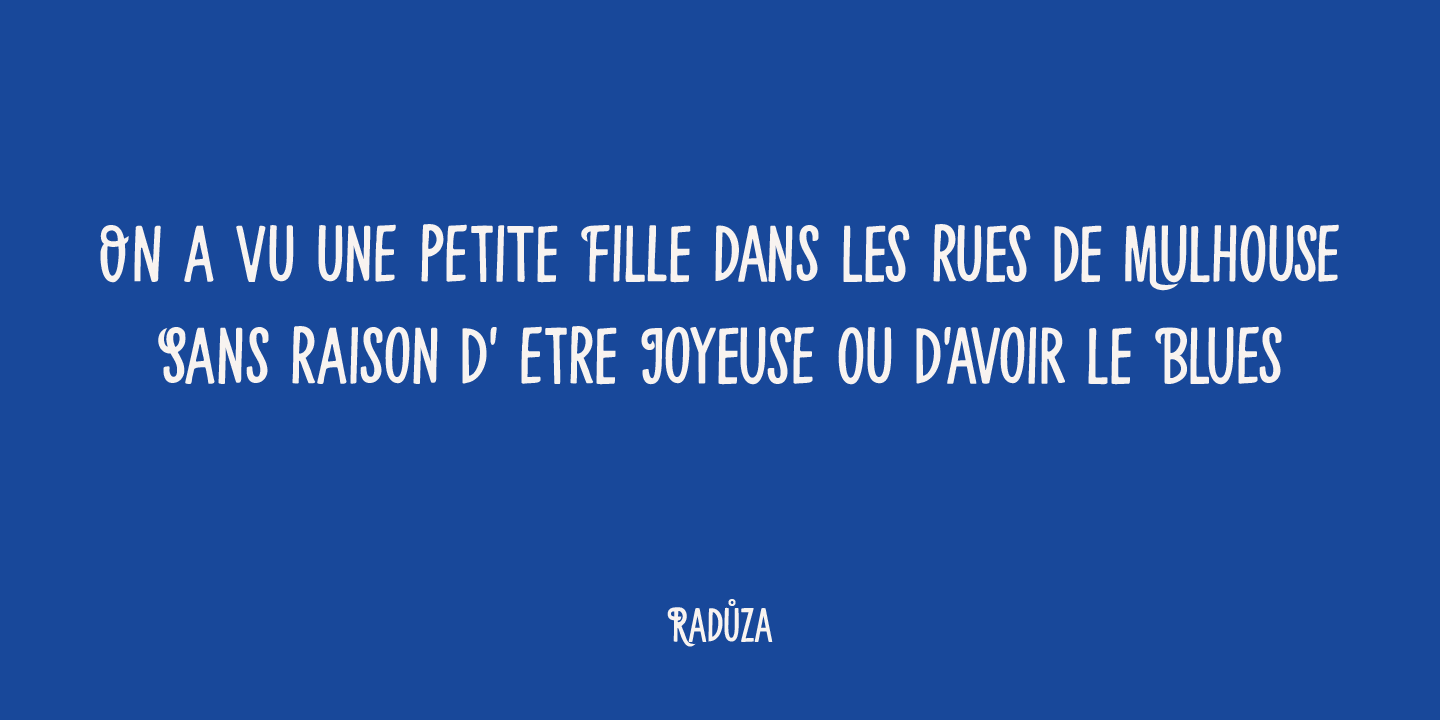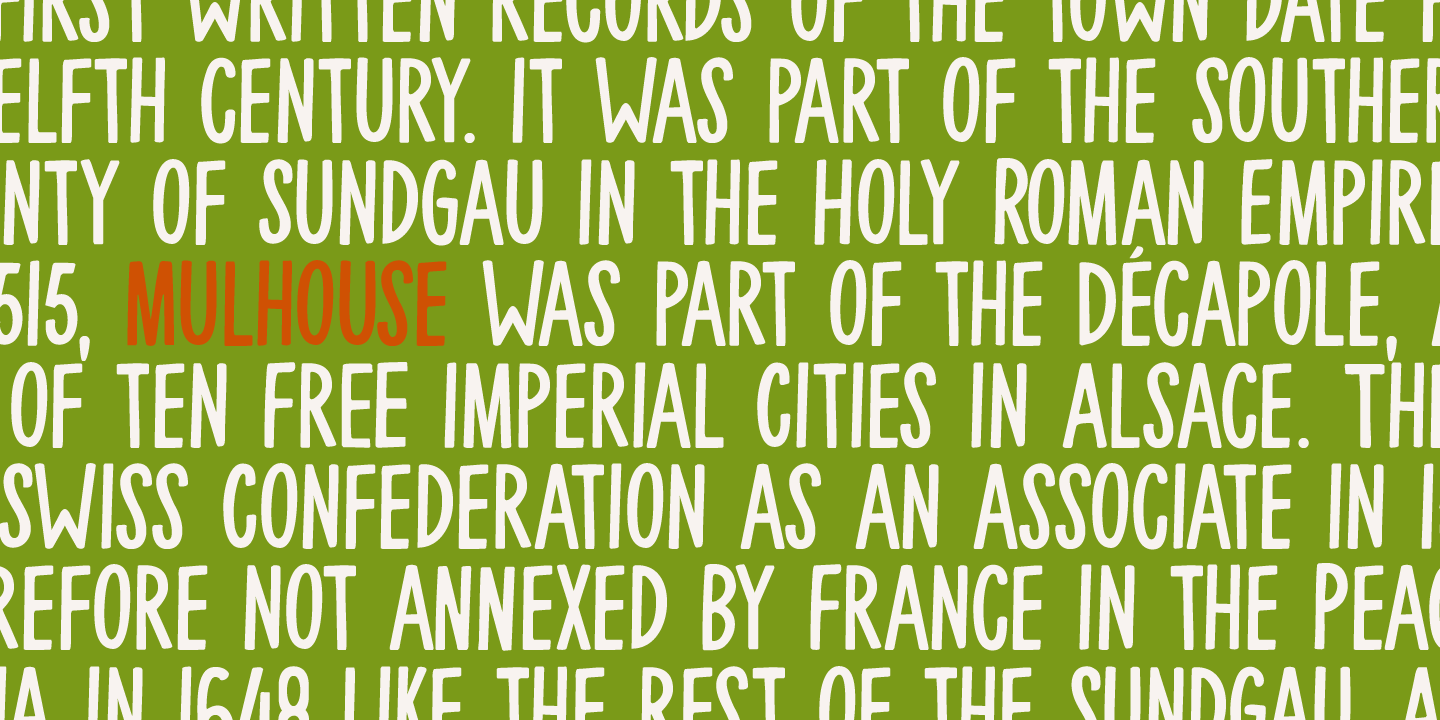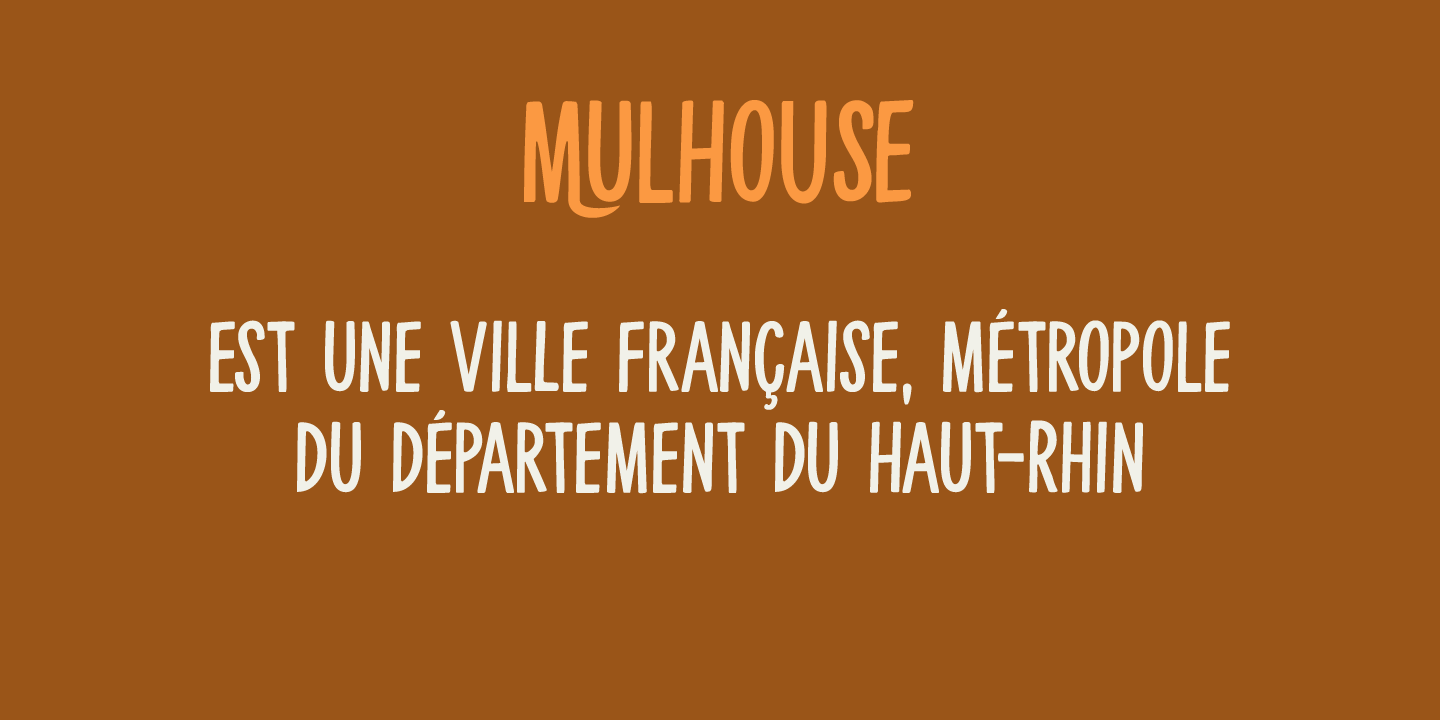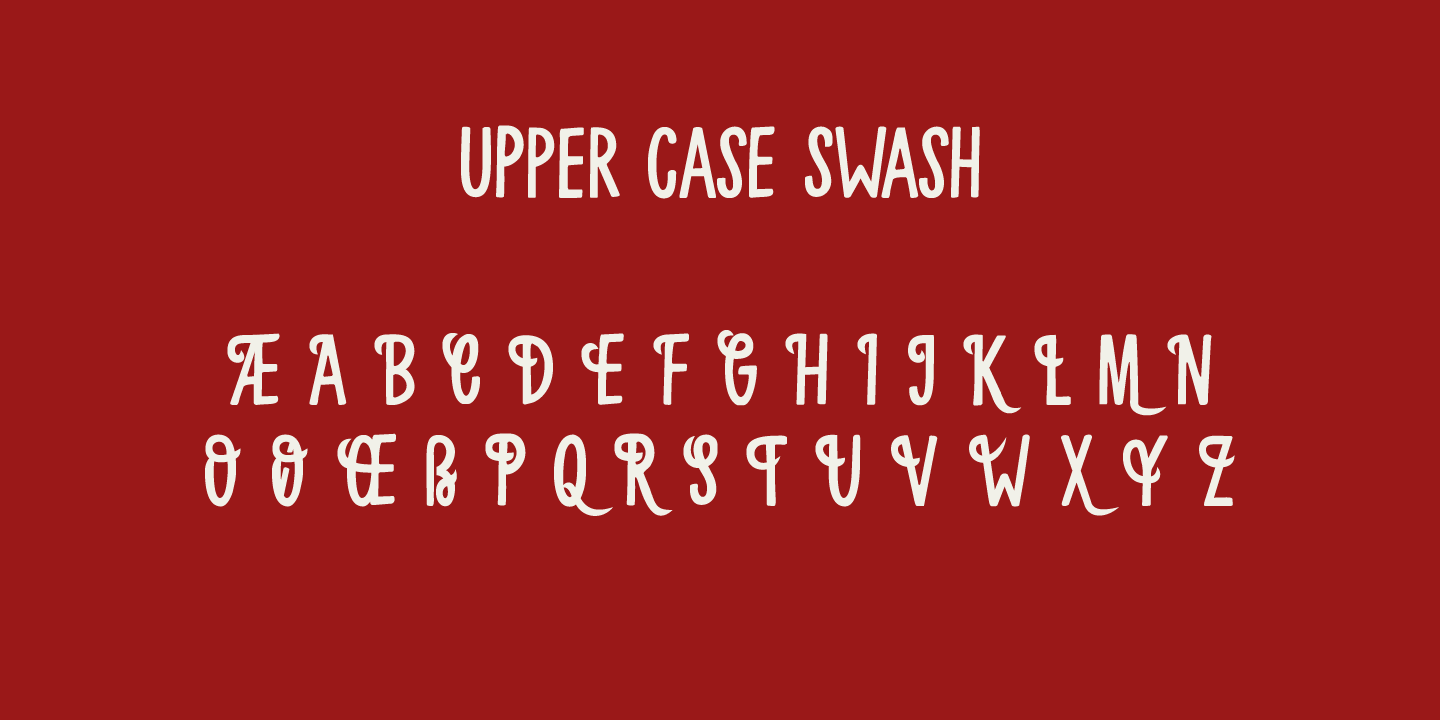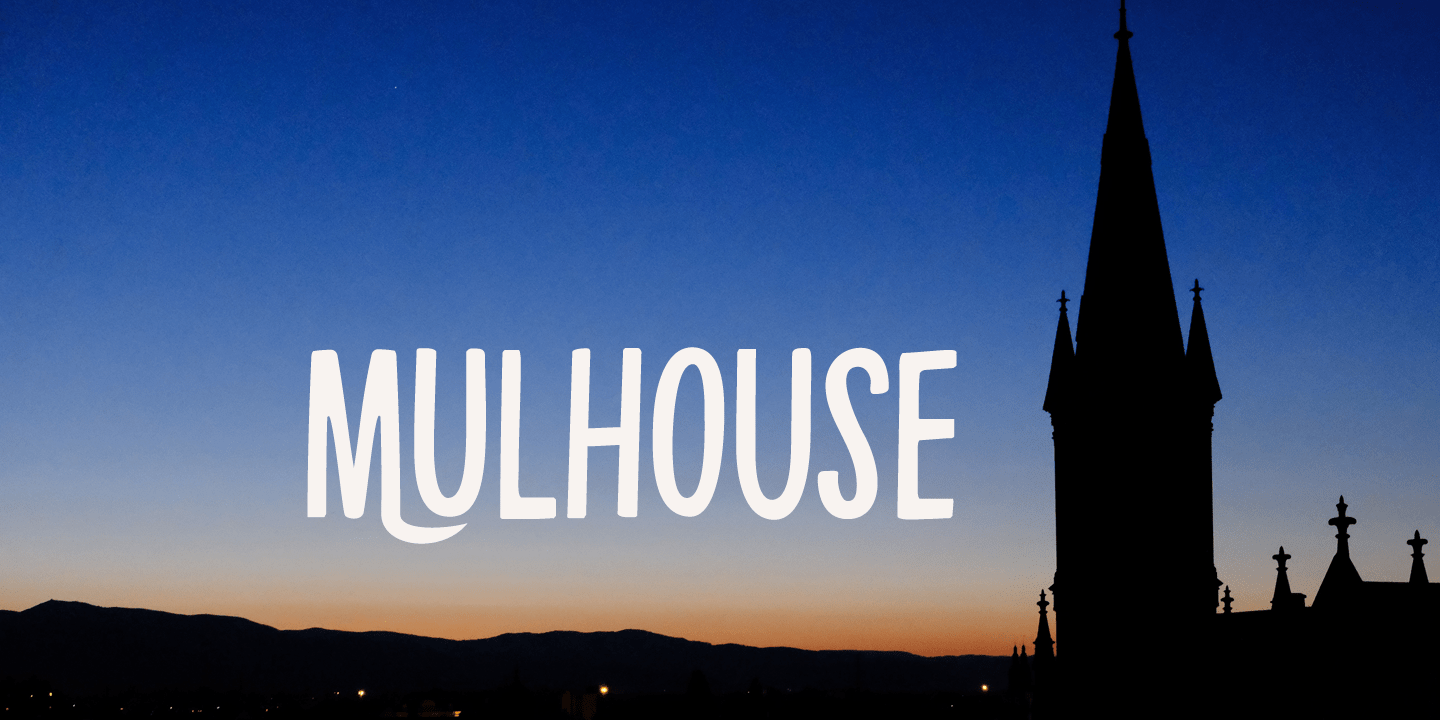
About Mulhouse
Mulhouse is a city in Northern France. It has a nice historical center and a car museum. Mulhouse font is a ?movie poster font?: it was modeled after old movie posters from the 50\’s. It comes with swashes for the upper case glyphs and a generous sprinkling…